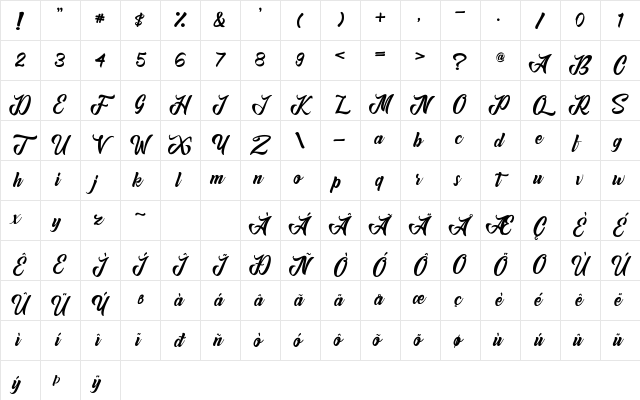
Anordighos Regular Free Font
Anordighos Regular
Foundry: Kotak Kuning Studio
Design Context for Anordighos
Anordighos is a composed and adaptable typeface that performs quietly and consistently across a wide range of design contexts.